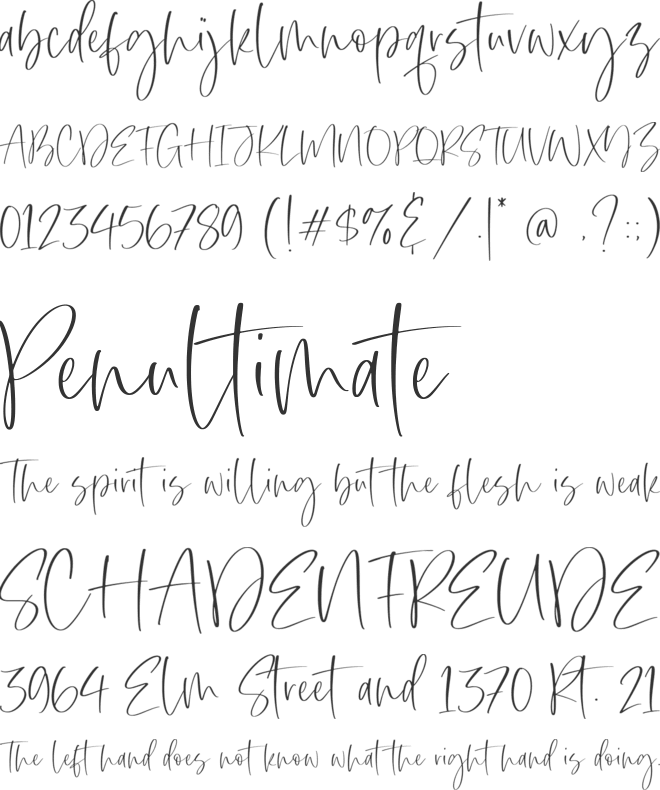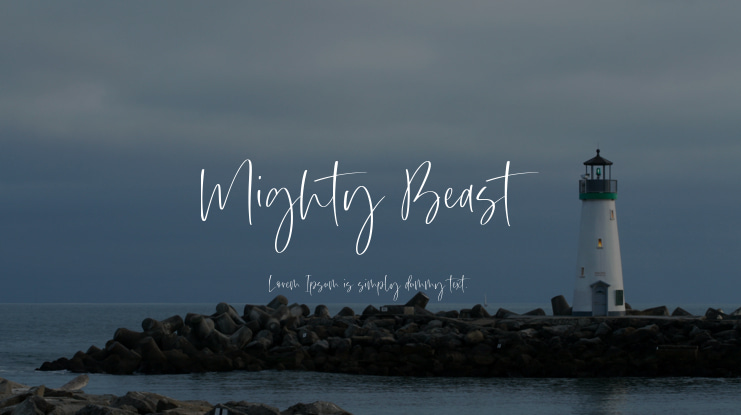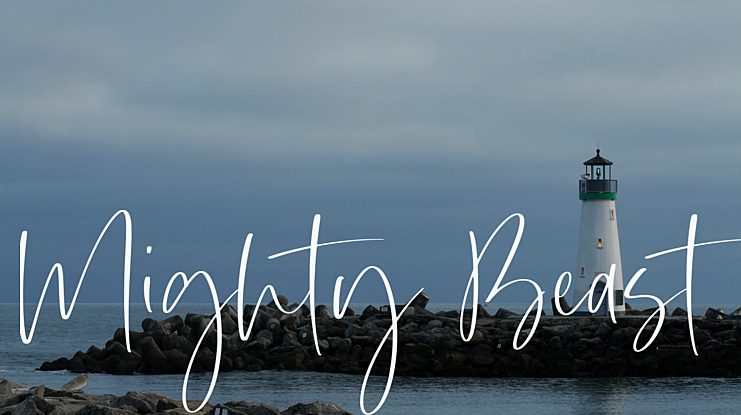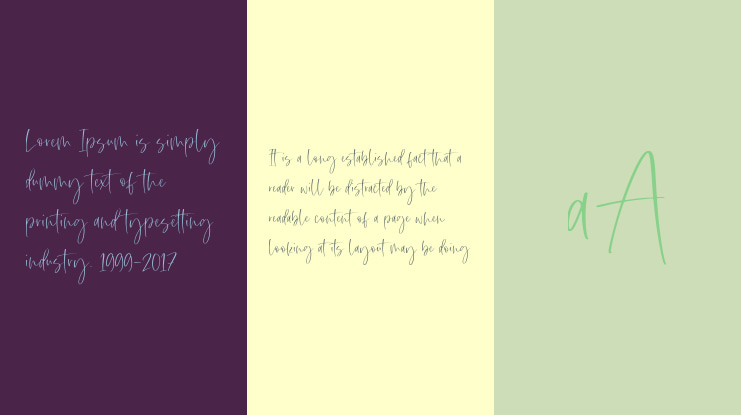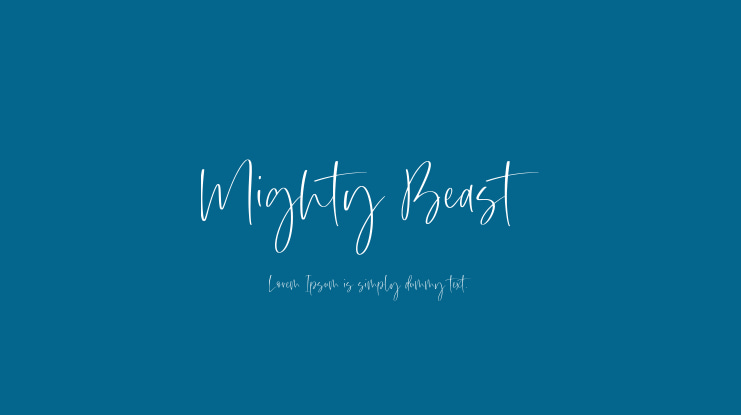
Proudly Present Mighty Beast
Mighty Beast is a Handwritten script font that is modern and fresh, and will bring a warm and inviting feel to your business. Take advantage of the fonts and experience the magic for yourself.
Mighty Beast is perfect for product packaging, branding project, megeenazine, social media, wedding, or just used to express words above the background.
Mighty Beast Font Features premium :
-Full Set of standard alphabet and punctuation
– Mighty Beast also multilingual support.